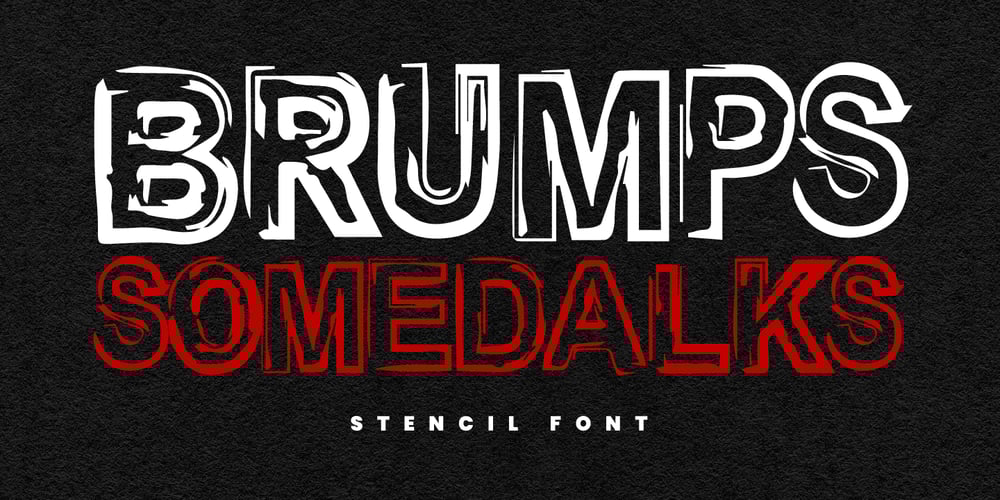
MC Brumps Somedalks Font Family was designed by Gilang Maulana and published by Maulana Creative. MC Brumps Somedalks contains 1 styles and family package options. Brumps Somedalks is a display modern font. With bold tall and hard stroke and fun character. To give you an extra creative work. Brumps Somedalks font support multilingual more than 100+ language. This font is good for logo design, Social media, Movie Titles, Books Titles, a short text even a long text letter and good for your secondary text font with sans or serif. Make a stunning work with Brumps Somedalks Font.